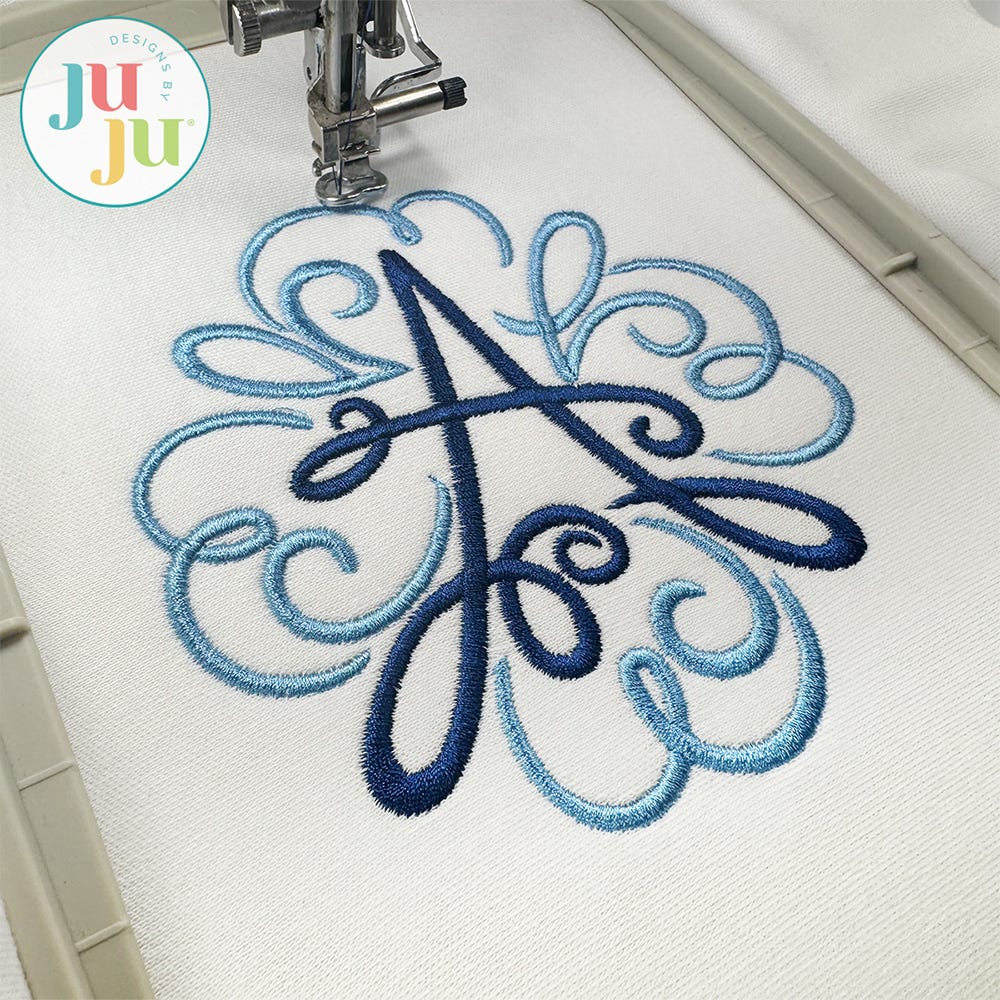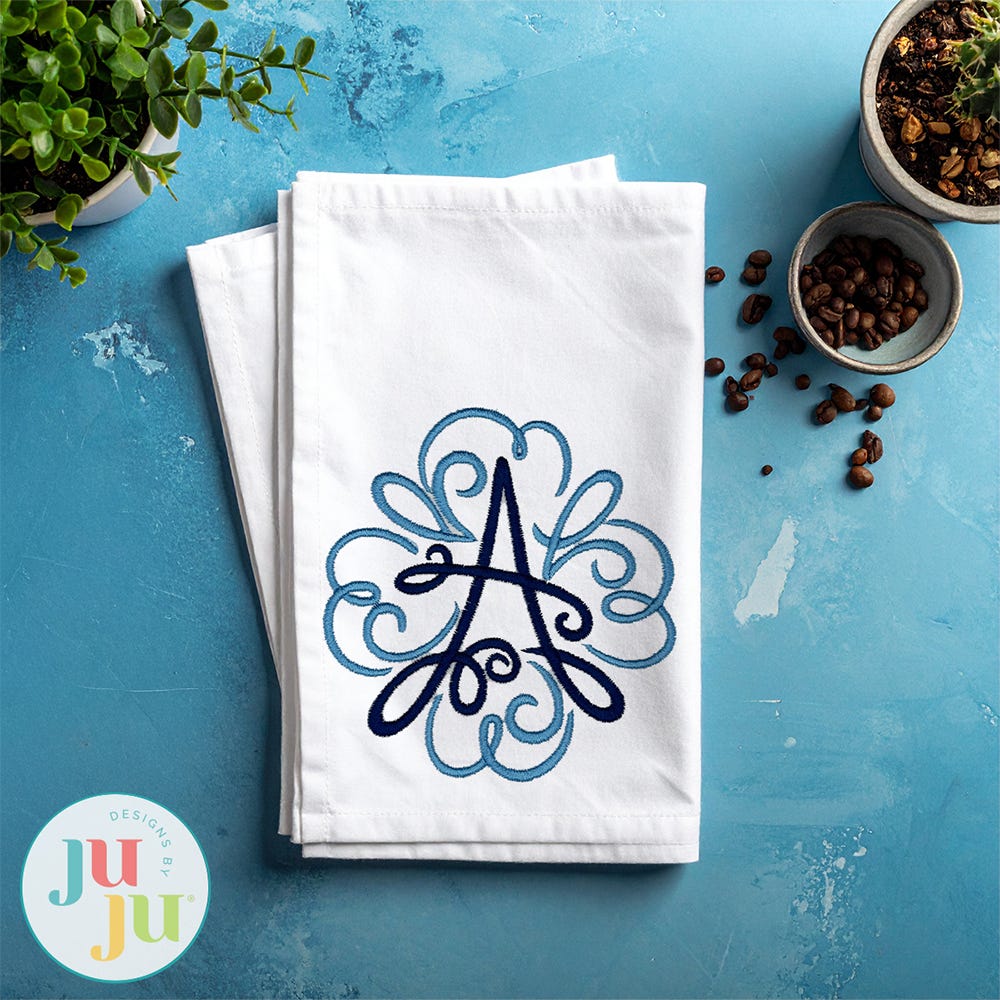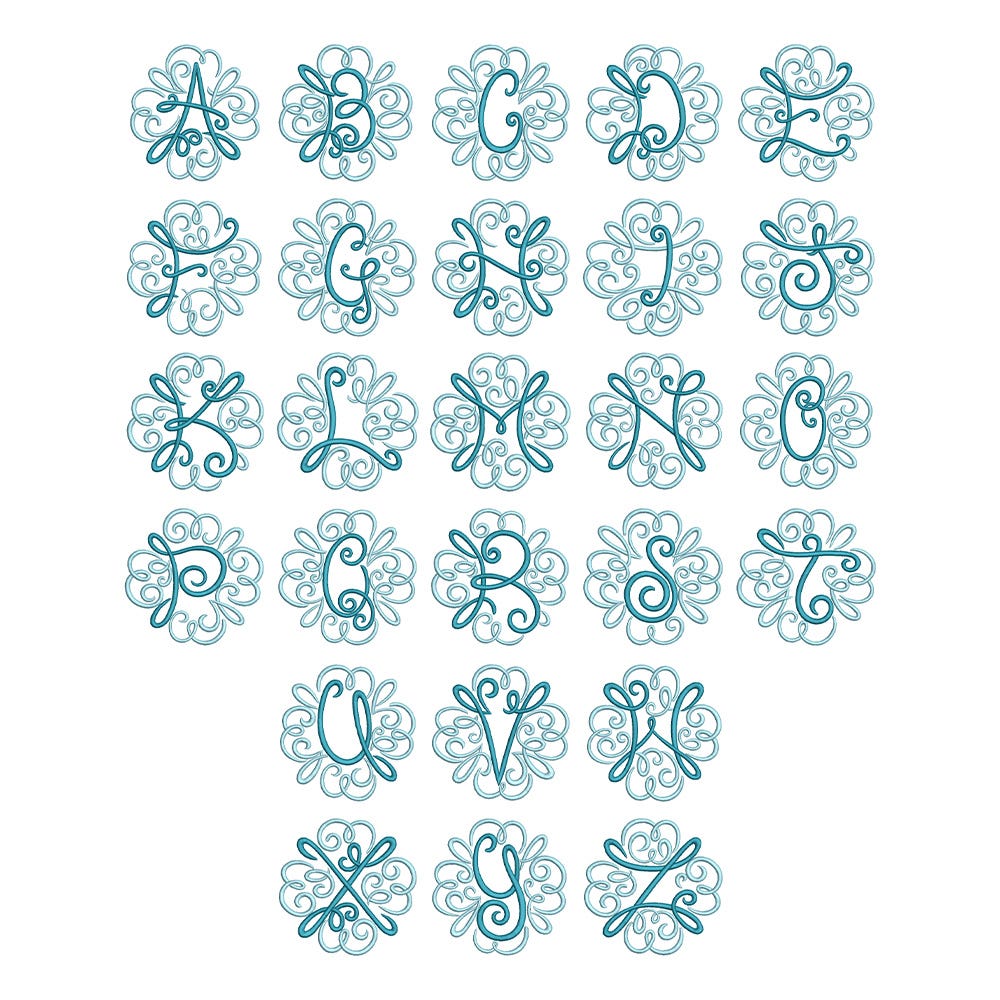
Hand Swirled Satin Stitch Monogram Embroidery Font
Add a touch of hand-drawn whimsy to your projects with our Hand Swirled Monogram. This embroidery-only monogram features lovely script letters surrounded by beautiful decorative swirled frames.